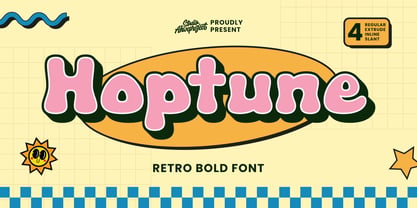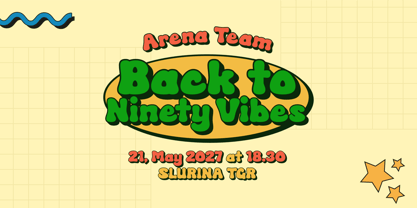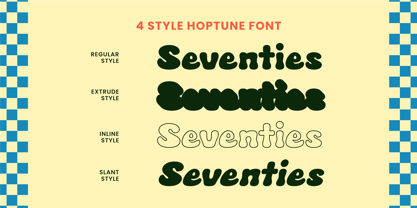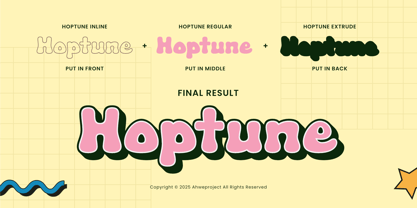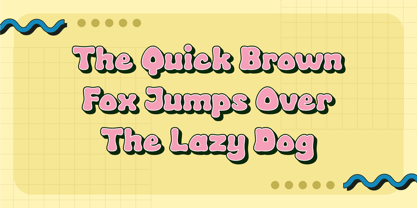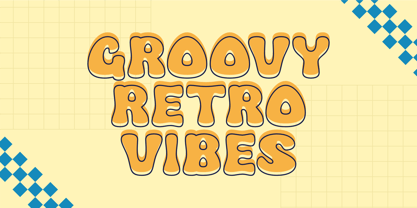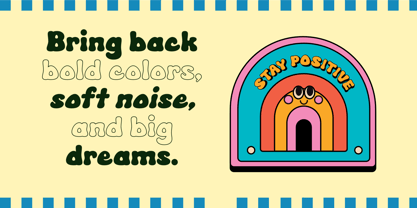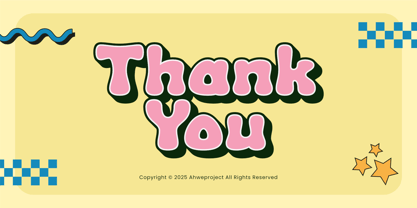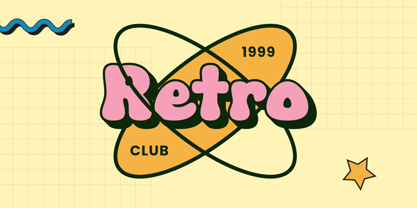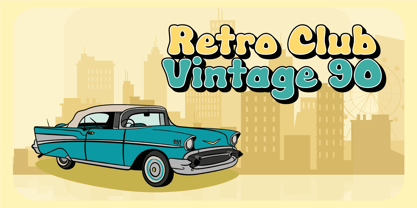
Hoptune
by ahweproject
The Hoptune Font Family was designed by Dida Ahluddin and published by ahweproject. Hoptune contains 4 styles and family package options. More about this family
Introducing Hoptune, a vibrant retro bold font that captures the charm of the ’70s and ’90s in a fun, bubbly style! With its chunky curves, playful vibe, and bold shadow, Hoptune is perfect for branding, posters, packaging, children’s projects, and anything that needs a pop of joyful energy. Hoptune comes in 4 unique styles: Regular, Extrude, Inline, and Slant – giving you creative flexibility for standout designs. Whether you’re crafting a nostalgic logo or a cheerful headline, Hoptune will make your words dance with personality. Perfect for: - Retro-themed branding - Children’s books & toys - Fun social media posts - Event posters & flyers - Sticker designs and merch Features : - Uppercase & lowercase - Numbers and punctuation - Multilingual - Alternates - 4 stylistic variations - PUA encoded - Easy to layer and combine We strongly recommend using applications that support Opentype Features and Glyphs panels such as Adobe Apps and Corel Draw. So you can see and access all the variations of Glyphs. Happy Design!